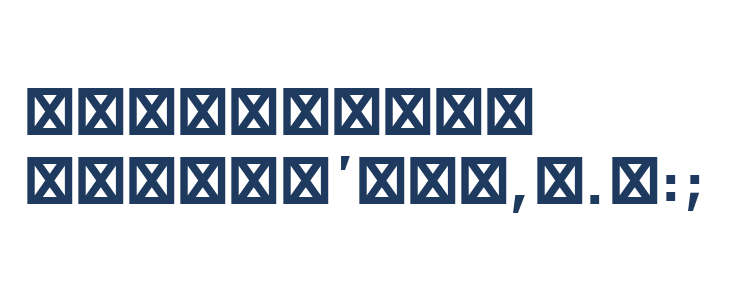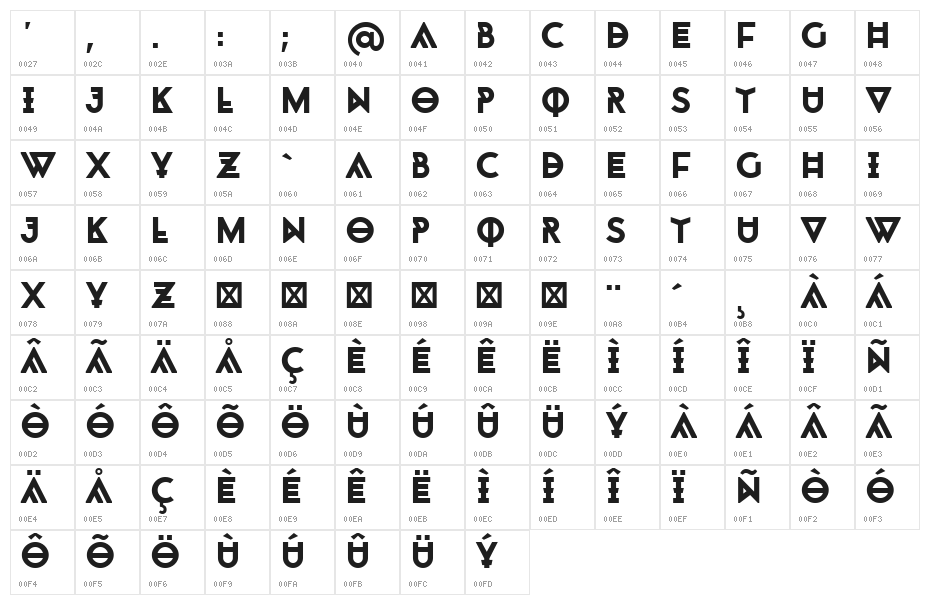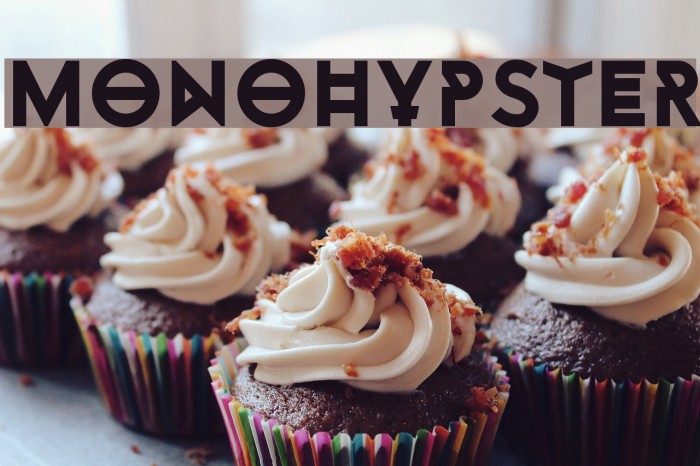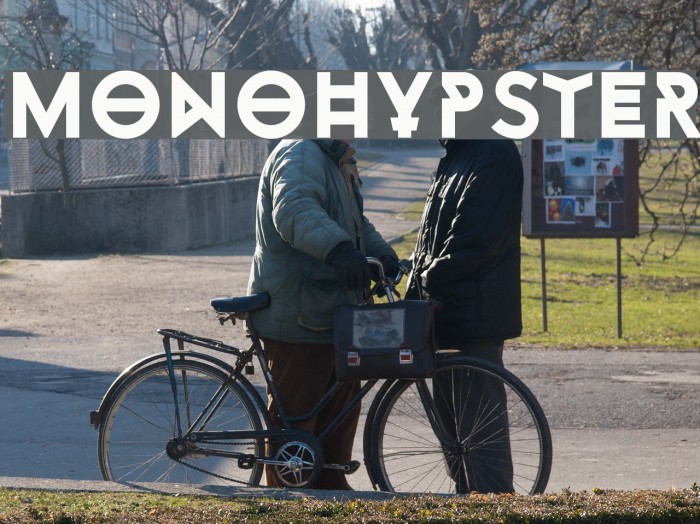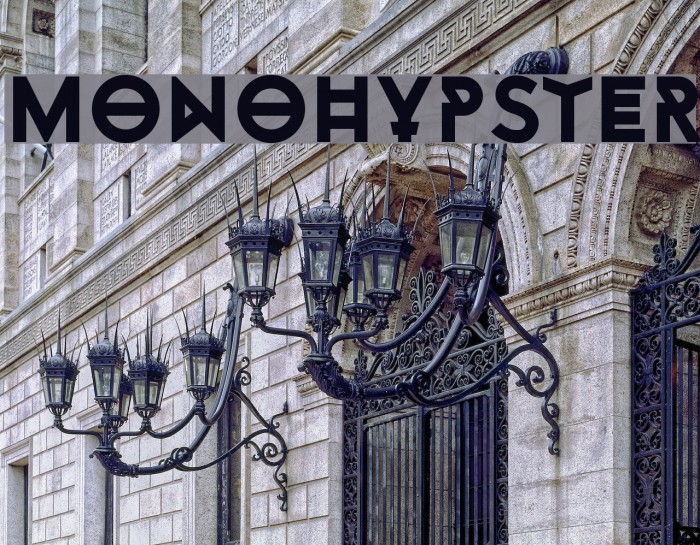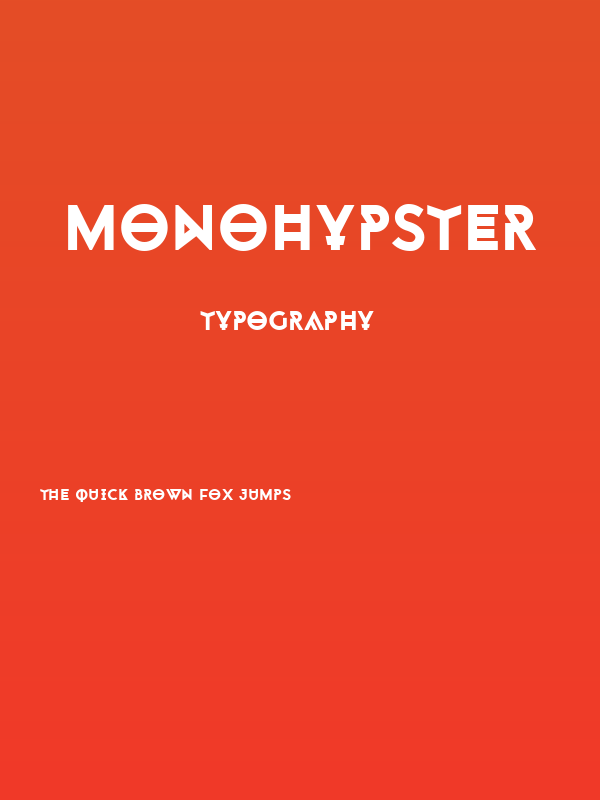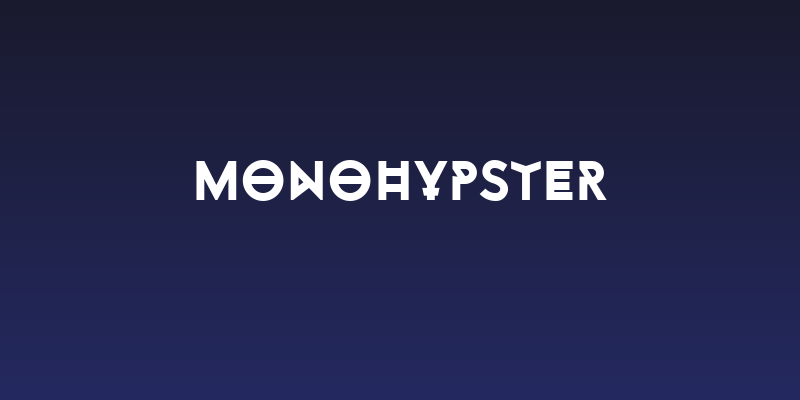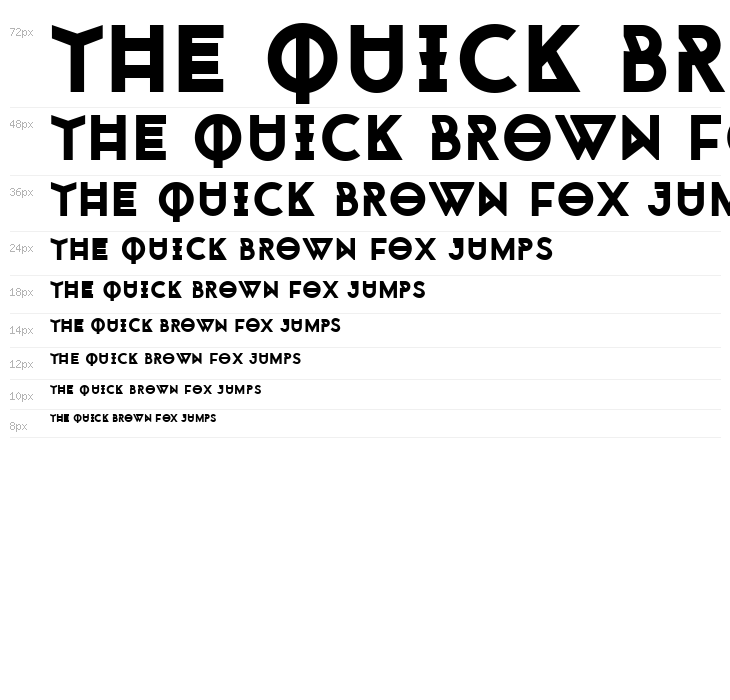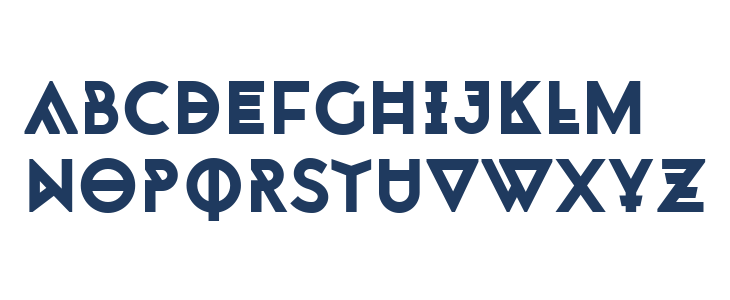
Monohypster Font
Monohypster Description
This font features a bold and geometric design, characterized by its sharp angles and unique shapes. The uppercase letters are particularly striking, with a futuristic and almost tribal aesthetic. The lowercase letters maintain the same boldness, ensuring consistency throughout. The numbers and special characters follow the same design principles, making them stand out with their distinctive forms. This font is perfect for projects that require a modern and edgy look, such as branding for tech companies or fashion labels.
| Use Case | Logos, Headlines |
| Proposed Projects | Ideal for tech branding, fashion labels, and modern design projects. |